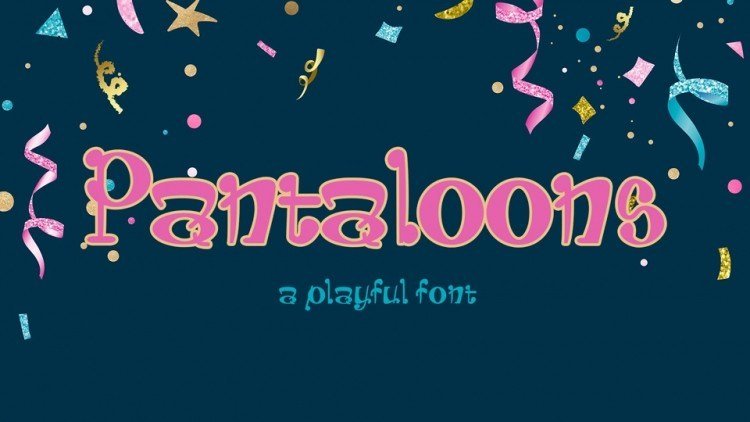
Pantaloons Display Font
Pantaloons is a playful and funny typeface. It contains upper and lowercase letters, numbers, symbols, including multilingual support.
Pantaloons font is ideal for kids products, books and games, holiday designs and other fun projects.